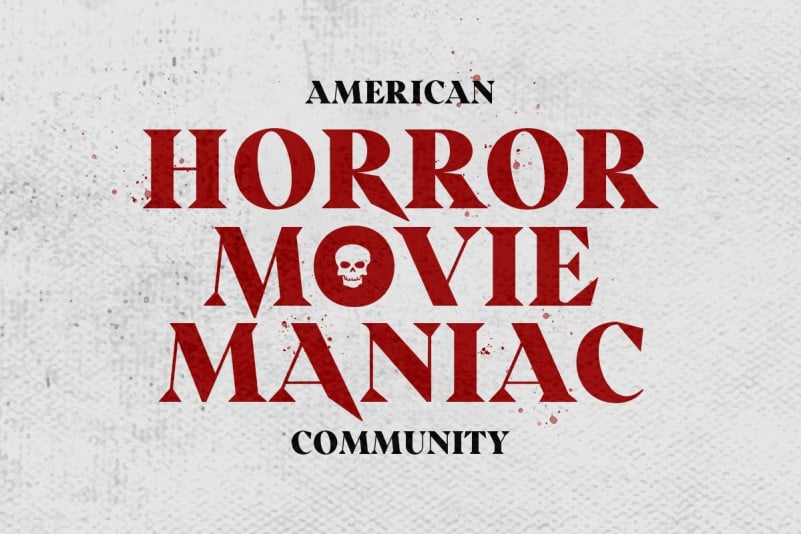
Scary Things Serif Font
Scary Things Serif Font is a serif geometric typeface, which is inspired by letterpress printing. It’s designed and shared by Sarid Ezra. This typeface is a sharp serif with horror & creepy vibes! This serif is so clean that will make your design pop up. This font is suitable for poster movies especially thriller & horror movies. With unique & sharp shape, this font will make your poster more stand out! You also can use this font for any design because of the versatility in this font. Also, this font support multi language. Let’s make your next halloween poster with this font!